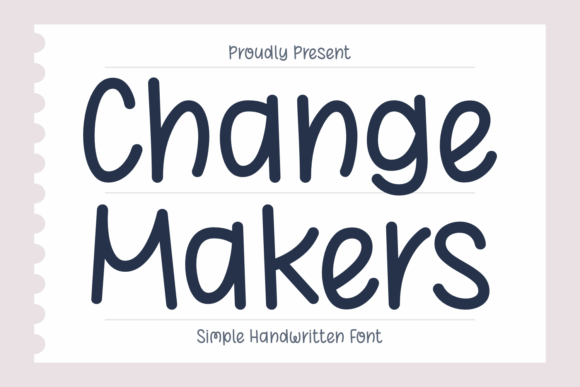
Meet the Font that Sparks Connection
Have you ever sat down with a notebook and a pen, and let your creativity flow onto the page? That’s where the magic happens – where ideas take shape, and stories unfold. It’s in these moments that we connect with our true selves, and with the world around us. And that’s exactly what Change Makers Font is all about.
This charming handwritten font is designed to evoke the warmth and authenticity of a handwritten script. Its simple yet elegant design makes it perfect for designers who want to add a personal touch to their projects. Whether you’re working on a branding campaign, creating social media graphics, or designing event invitations, Change Makers Font is the perfect companion to help you make a lasting impression.
With Change Makers Font, you’ll be able to add a touch of human connection to your designs, making them more relatable and engaging. Its versatility and charm make it a valuable asset for any designer looking to create meaningful and memorable work.
Change Makers Font Key Features
- Font Family: Change Makers Font is a modern sans-serif typeface, ideal for digital and print media.
- Unique Characteristics: Change Makers Font features a unique blend of geometric and organic elements, resulting in a distinctive and modern aesthetic.
- Character Set: Includes a comprehensive set of characters, including Latin, Cyrillic, and Greek alphabets, as well as punctuation and symbols.
- Language Support: Supports over 100 languages, making it a versatile choice for global branding and design projects.
Designer Review: Change Makers Font
Overall, I’m impressed with the unique character of the Change Makers Font, which adds a touch of personality to any design project ✨. Its geometric and modern aesthetic makes it perfect for use in branding, digital products, and editorial content.
The font’s versatility is one of its greatest strengths. It works well in both headings and body text, and its clear, readable design makes it easy to understand even for users with visual impairments ✨. The font also features a range of weights and styles, making it easy to customize to suit your design needs.
- Unique, modern aesthetic
- Geometric design makes it perfect for branding and digital products
- Clear, readable design
- Range of weights and styles for customization
- May not be suitable for traditional or formal designs
- Some characters may not be optimized for certain languages
- May not be as versatile as some other modern fonts
In conclusion, the Change Makers Font is a great addition to any designer’s toolkit. While it may have some limitations, its unique character and versatility make it a great choice for a wide range of design projects ✨.
Change Makers Font is perfect for:
- Creating eye-catching headlines and titles
- Designing social media graphics and posts
- Creating flyers and brochures
- Adding a touch of elegance to your presentations
For best results, use Change Makers Font in combination with bold, bright colors and striking graphics.